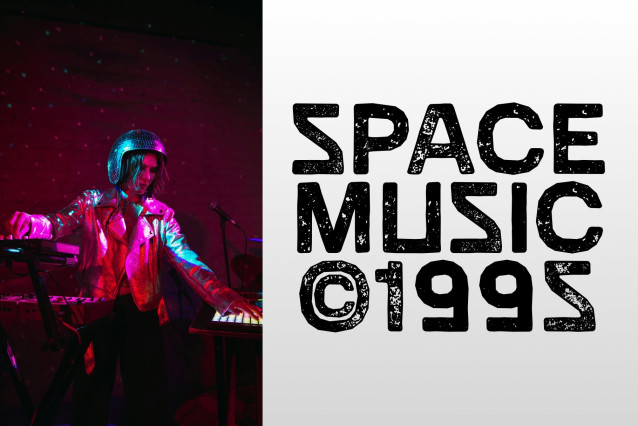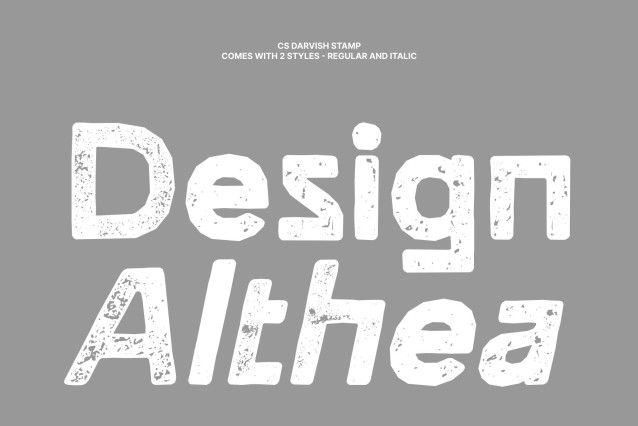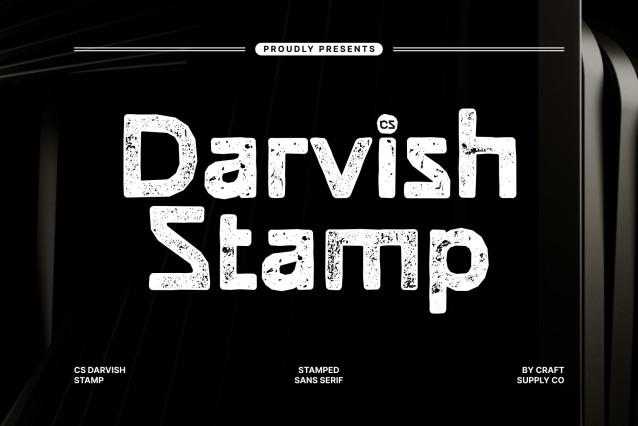
CS Darvish Stamp Font
CS Darvish Stamp – Sans Serif Typeface: Where Modernity Meets Professionalism
Modern Sans Serif with a Vintage Stamp Character
This is a modern sans serif font designed for corporate environments, combining clean professionalism with a subtle stamped texture. The tidy, easy-to-read letterforms ensure clarity across various media, while the stamp effect introduces a refined vintage touch that adds warmth and personality to its contemporary structure.
Emphasis on Readability and Clarity
Built with consistent proportions and a minimalistic approach, this font delivers excellent legibility in both digital and print formats. The stamped texture softens the modern geometry, creating a balanced look that feels polished yet approachable perfect for professional communication.